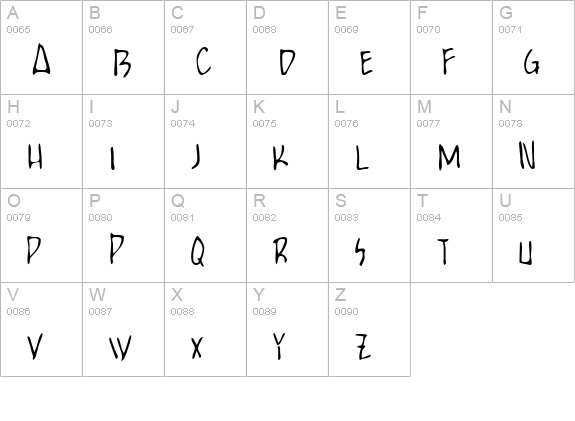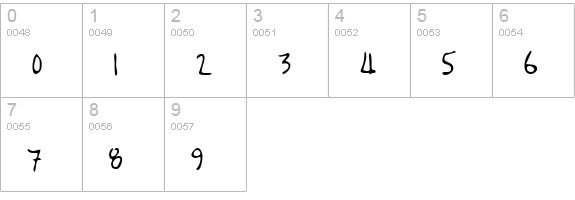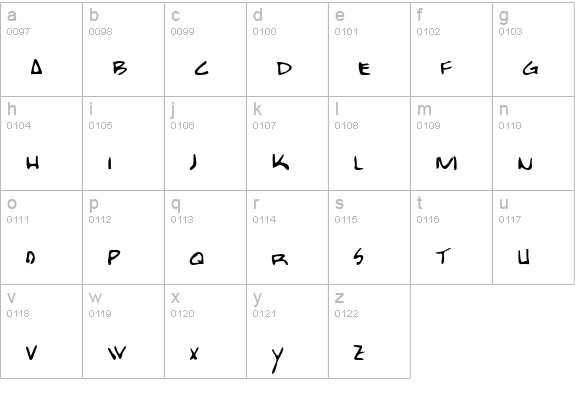
BartsHand Regular Font Details
BartsHand Regular is the standard, neutral variant in the BartsHand typeface family \xE2\x80\x94 well suited to general body text, paragraphs, and standard typographic work.
BartsHand Regular font is a charming and versatile typeface that exudes a sense of whimsy and creativity. With its unique hand-drawn style and playful curves, this font is perfect for adding a personal touch to your designs. Whether you're working on invitations, logos, or branding materials, BartsHand Regular will bring a touch of character and warmth to your project. Best of all, BartsHand Regular is available for free download at FontsMarket.com. This means you can easily access this delightful font and start using it in your projects right away. Don't miss out on the opportunity to add a touch of personality to your designs with BartsHand Regular font!